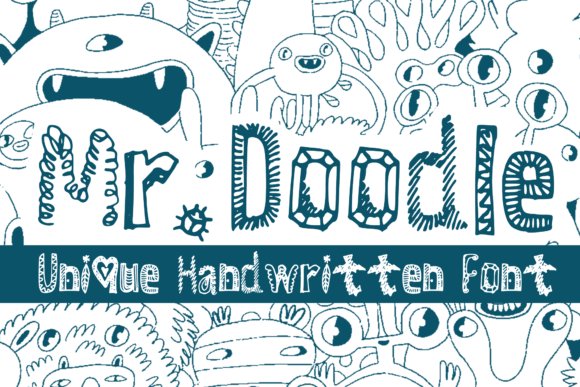
Introducing Mr. Doodle Font, the ultimate choice for adding a playful and whimsical touch to your designs! Created by MVMET, this kid-friendly handwritten doodle font is a must-have for anyone looking to infuse their projects with a burst of creativity and charm.
Are you searching for the perfect font to bring your kids' party invitations to life? Look no further! Mr. Doodle Font is the best font for kids' party, guaranteed to captivate young hearts and make your invitations truly unforgettable. With its lively and fun design, this font will set the perfect tone for a celebration filled with laughter and joy.
But the possibilities don't end there! Mr. Doodle Font is incredibly versatile and can be used for a wide range of projects. Let your imagination run wild as you explore its endless potential. From adorable t-shirt designs that will make your little ones stand out from the crowd, to captivating kids' book illustrations that will transport young readers to enchanting worlds, this font has got you covered.
Need to send a heartfelt greeting card but struggling to find the right words? Mr. Doodle Font is here to save the day! Its casual and handwritten style adds a personal touch to your messages, making them truly heartfelt and memorable. Say goodbye to generic and impersonal cards and let your emotions shine through with this delightful font.
And that's not all! Mr. Doodle Font is perfect for creating eye-catching stickers and posters that demand attention. Whether you're promoting a fun event or adding a touch of whimsy to your surroundings, this font will make a bold statement and leave a lasting impression.
So why wait? Fall in love with Mr. Doodle Font today and unlock a world of creativity and imagination. Let your designs speak volumes with this captivating font that will bring smiles to faces and warmth to hearts. With its kid-friendly appeal and endless possibilities, this is a font that you simply can't resist.